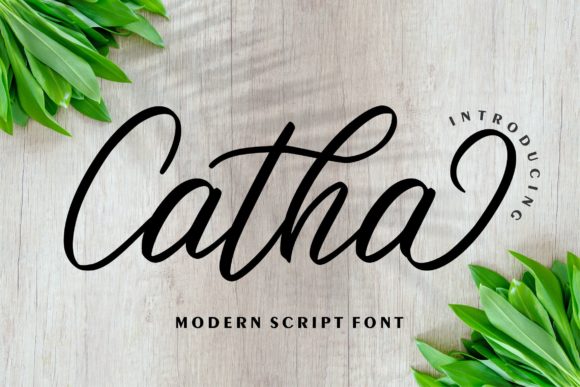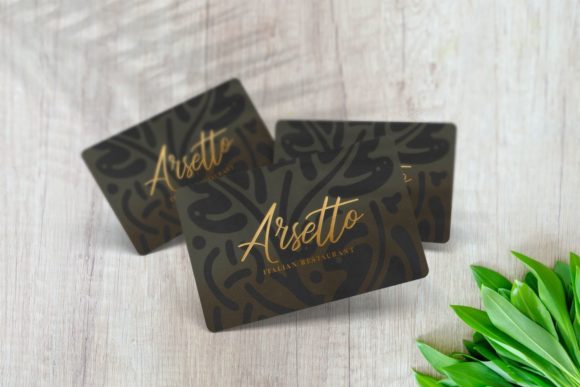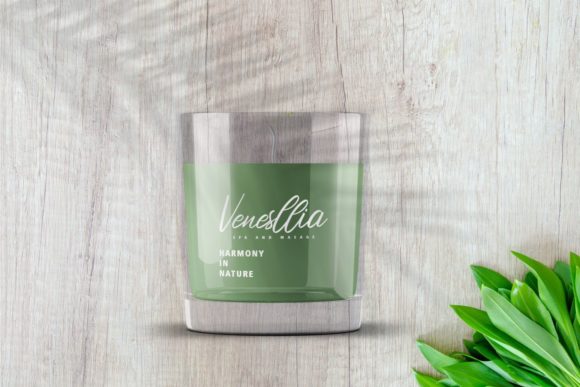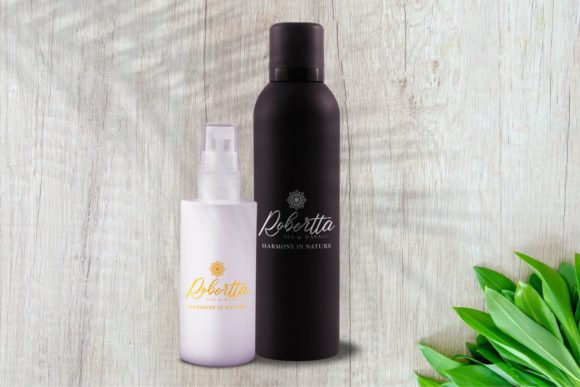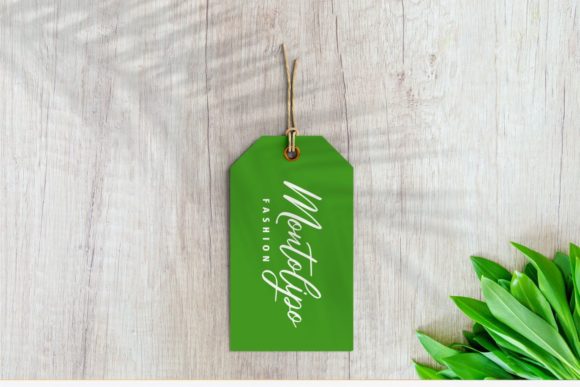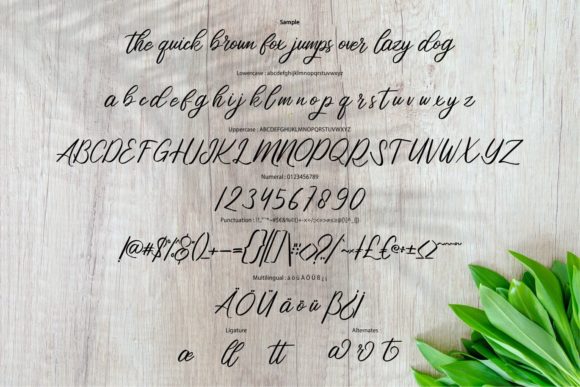
Catha Font
About Catha Font
Catha is a modern script font with a calligraphy style, so beautiful on invitation like greeting cards, branding materials, business cards, quotes, posters, and more!